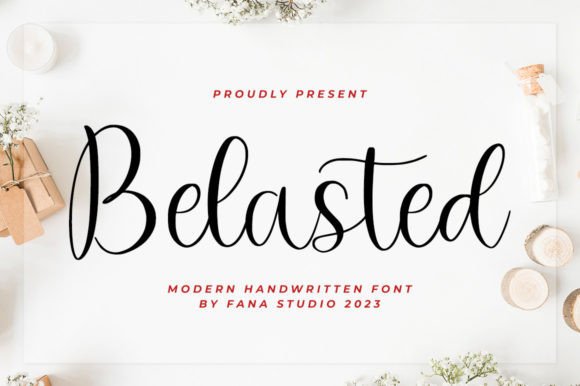
Behold, Belasted: The Script Font That Will Transform Your Designs!
Are you a creative professional seeking an elegant and classy font to add a personal touch to your projects? Look no further than Belasted, the exquisite script font crafted by Fanastudio. With its modern flair, Belasted is the perfect choice for a wide range of projects.
Imagine the impact your logos and branding will make with Belasted's sophisticated charm. Create captivating invitations and stationery that exude elegance and style. Elevate your wedding designs with Belasted's timeless beauty. Make your social media posts and advertisements stand out with its captivating curves.
Envision the possibilities for your product packaging and designs with Belasted's versatility. Its delicate strokes will add a touch of sophistication to your labels and photography. Create mesmerizing watermarks that add a touch of exclusivity to your special events. The possibilities are endless with Belasted.
Belasted is the font that breathes life into your creative endeavors. Its elegant, handwritten style will add a unique and enchanting touch to any project you undertake.
Step into the world of Belasted today, and experience the magic of a font that captivates and inspires.